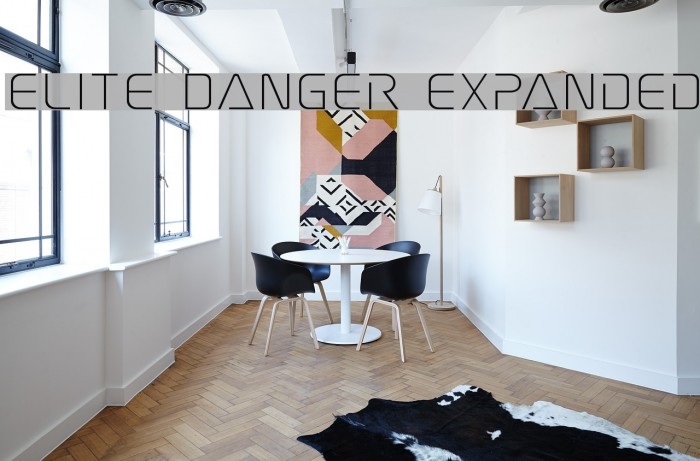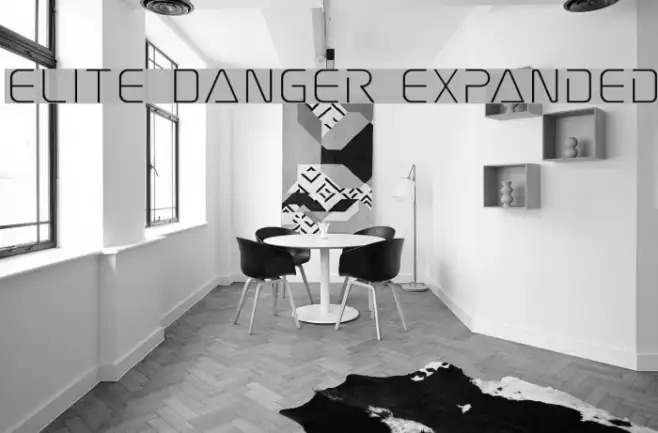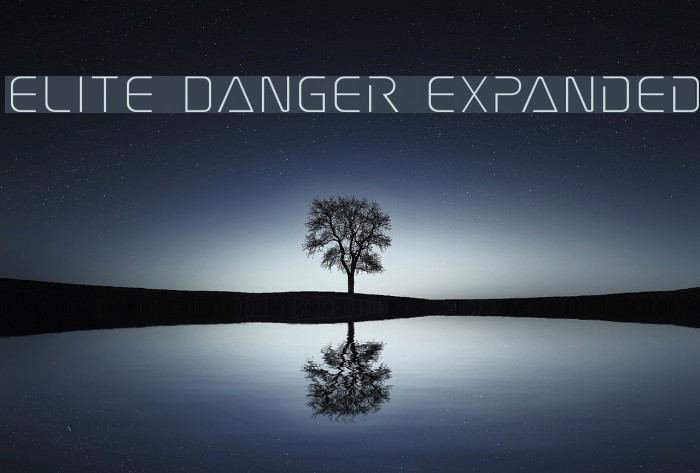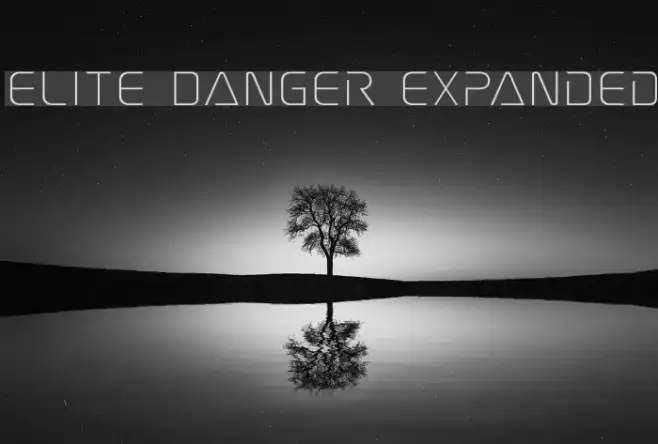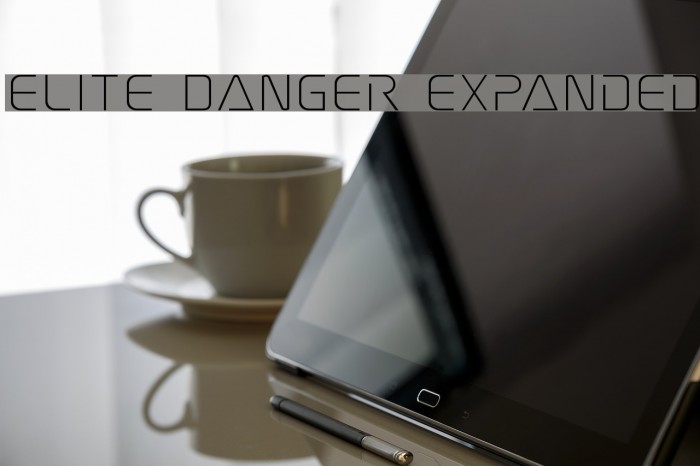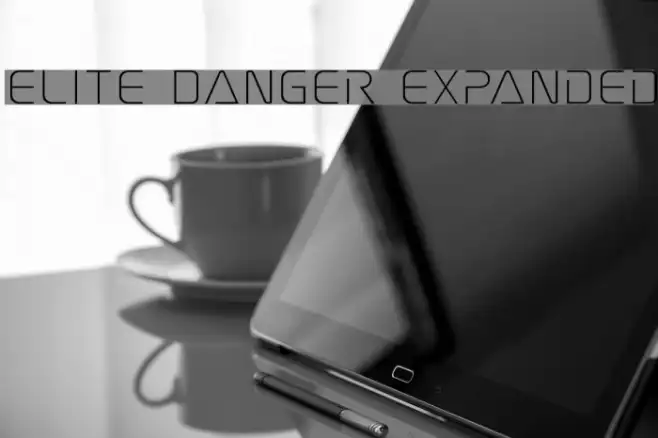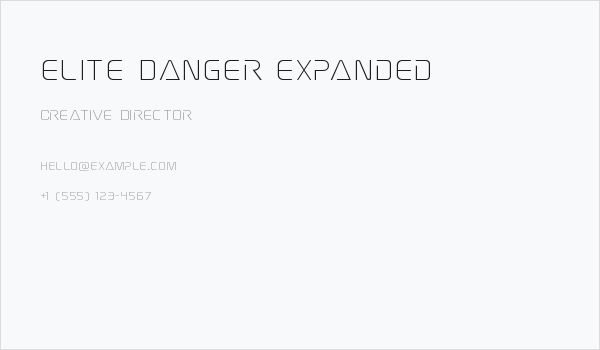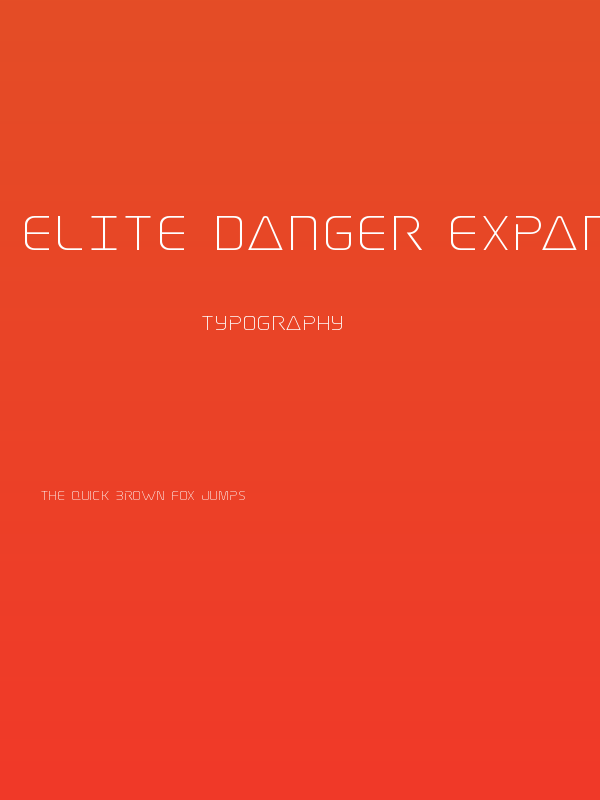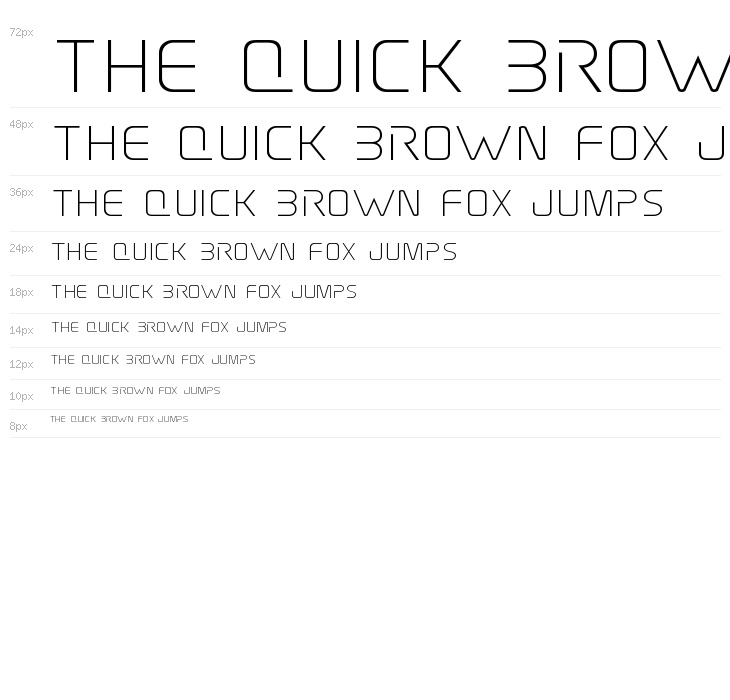
Elite Danger Expanded Font
Elite Danger Expanded Description
This font features a futuristic and geometric design with clean, sharp lines and a modern aesthetic. The characters are constructed with a consistent stroke width, giving it a uniform appearance. The angular shapes and open counters contribute to its distinct, tech-inspired look. The uppercase letters are particularly striking, with unique forms that emphasize the font's contemporary style. The numerals and special characters maintain the same design principles, ensuring a cohesive visual identity across all glyphs.
Proposed ProjectsIdeal for technology branding, sci-fi themed projects, video game interfaces, and modern advertising campaigns.